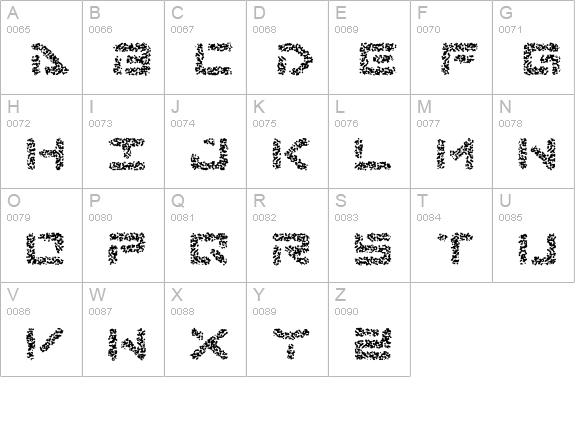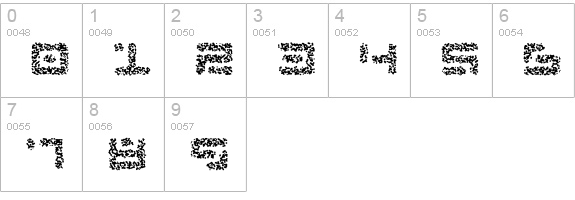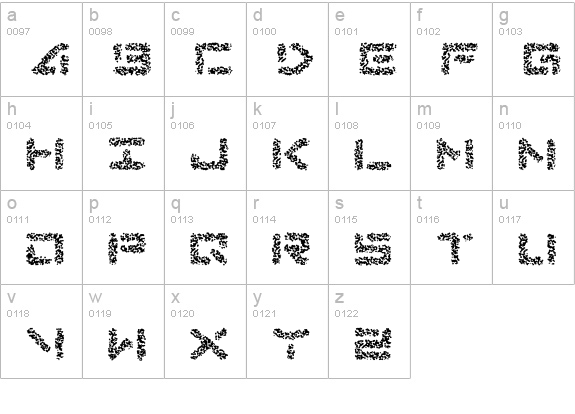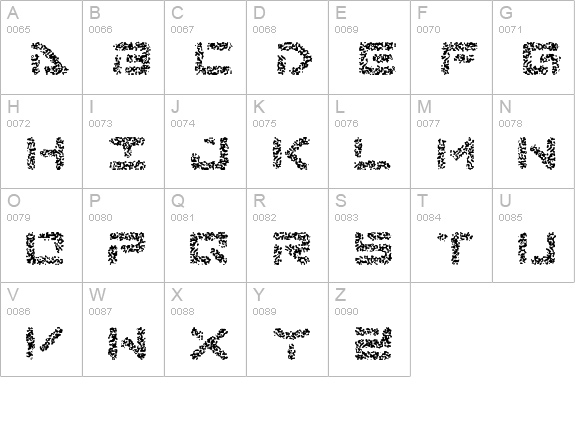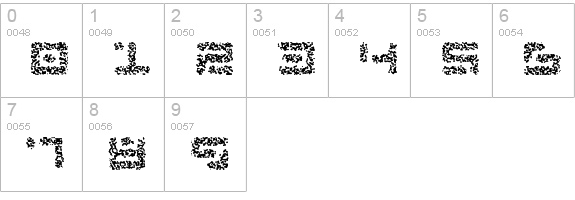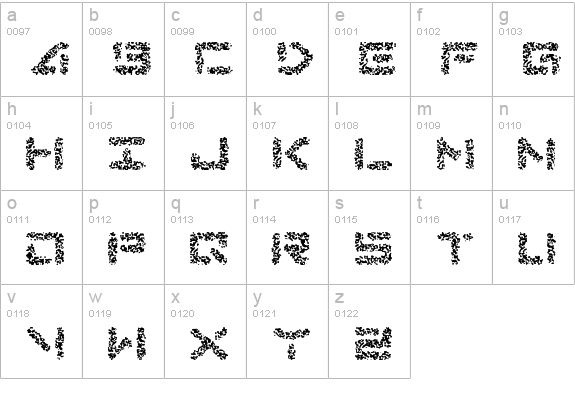
Abduction IV Font Details
Abduction IV font is a stunning display typeface that combines futuristic and edgy elements to create a bold and impactful design. With its sharp angles and sleek lines, this font is perfect for making a statement in your projects. The Abduction IV font is versatile and can be used for various purposes such as headlines, posters, logos, and more. One of the best things about the Abduction IV font is that it is completely free to download at FontsMarket.com. This means that you can easily access this unique and eye-catching font without any cost. Whether you are a designer looking for a standout typeface or someone who simply appreciates high-quality fonts, Abduction IV is a great choice. Don't miss out on the opportunity to enhance your designs with this modern and captivating font today.